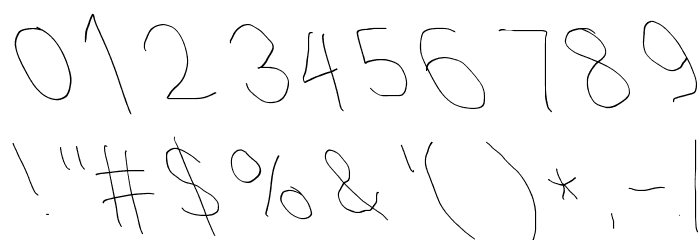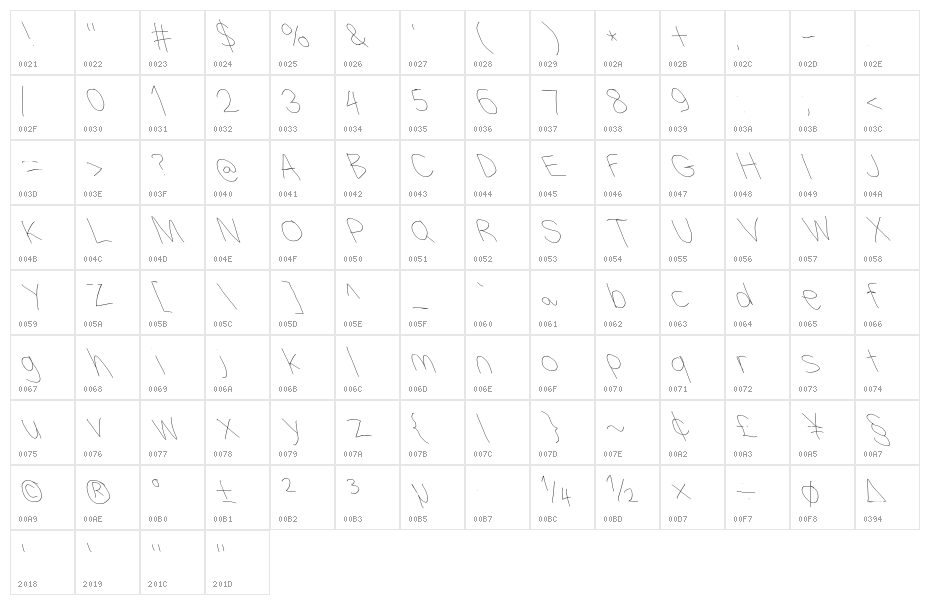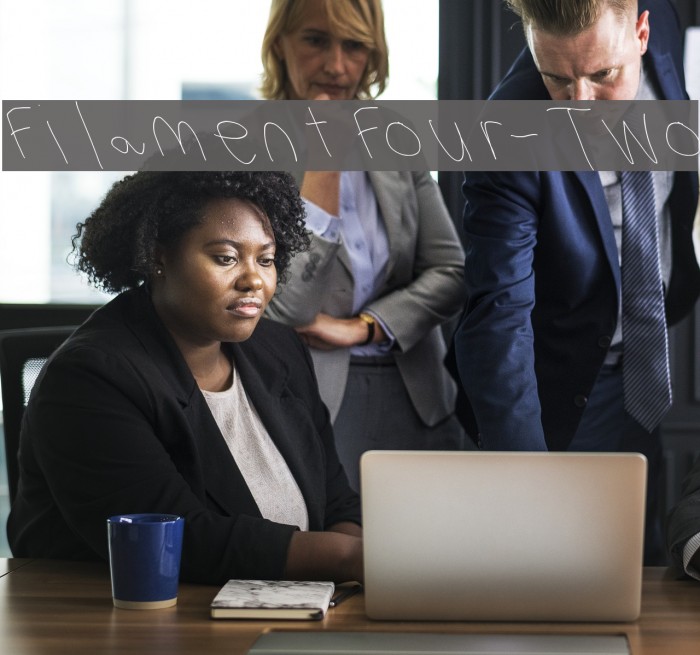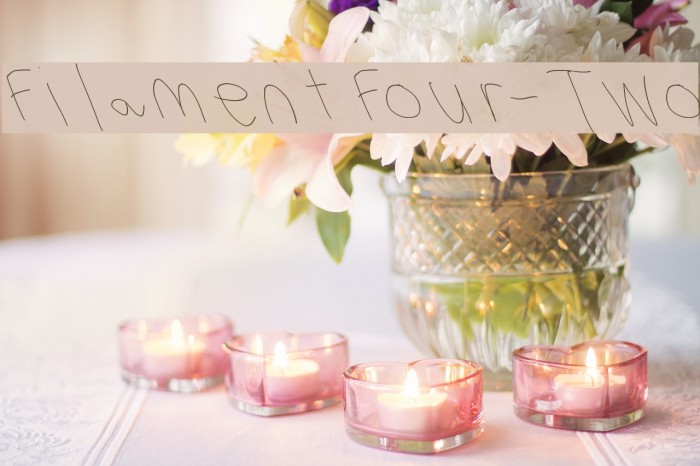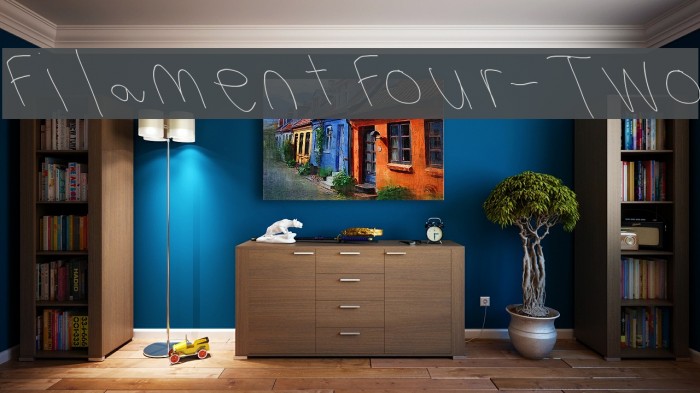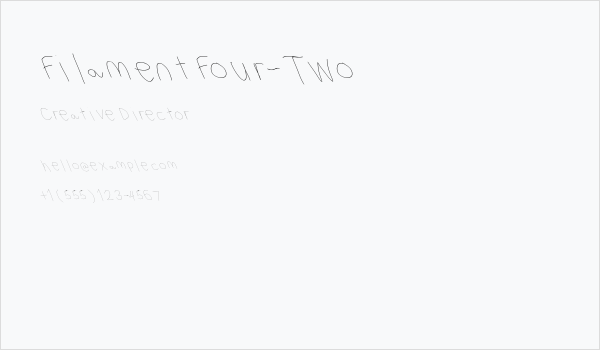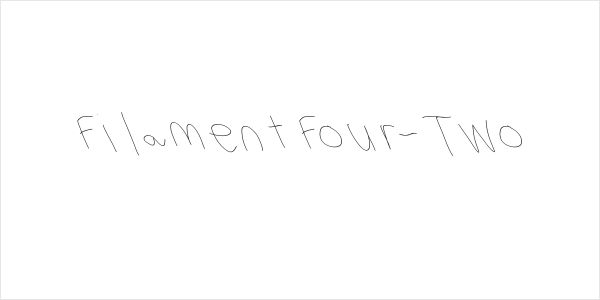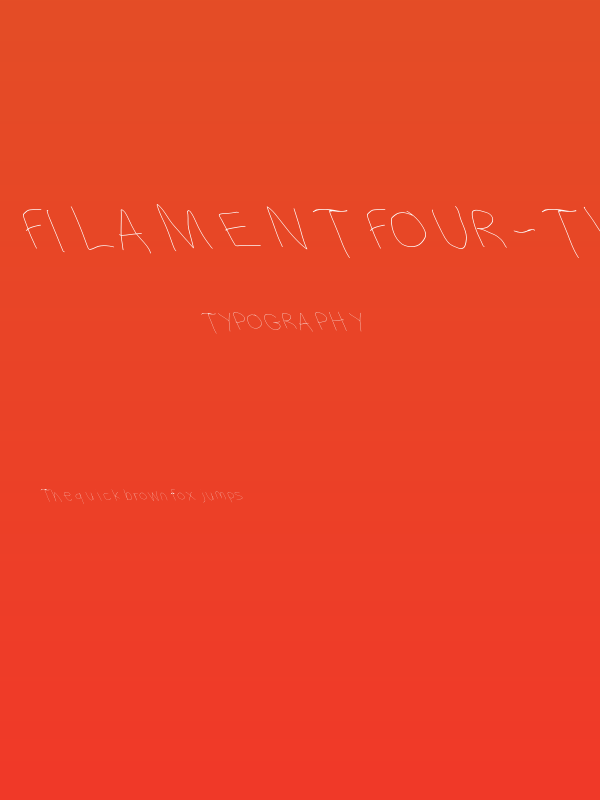
Filament Four-Two Font
Filament Four-Two Description
This font features a playful, handwritten style with a casual and informal appearance. The letters are thin and slightly irregular, giving them a whimsical and approachable feel. The uppercase and lowercase characters maintain a consistent height, while the numbers and special characters follow the same playful design. The strokes are light, and the overall look is airy and open, making it suitable for projects that require a personal touch.
| Proposed Projects | Ideal for greeting cards, children's books, casual invitations, and personal blogs. |